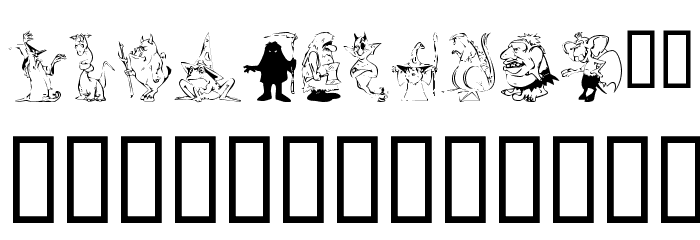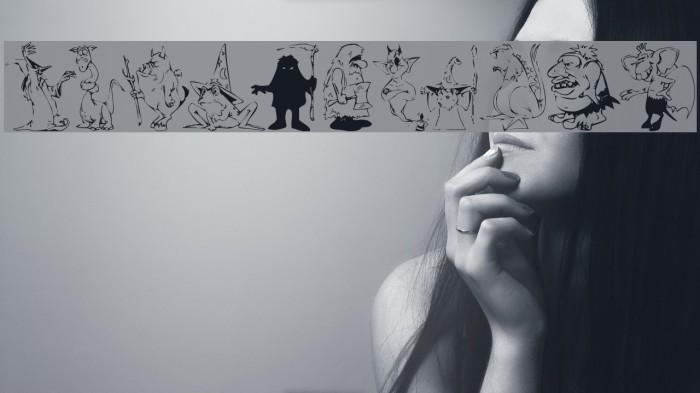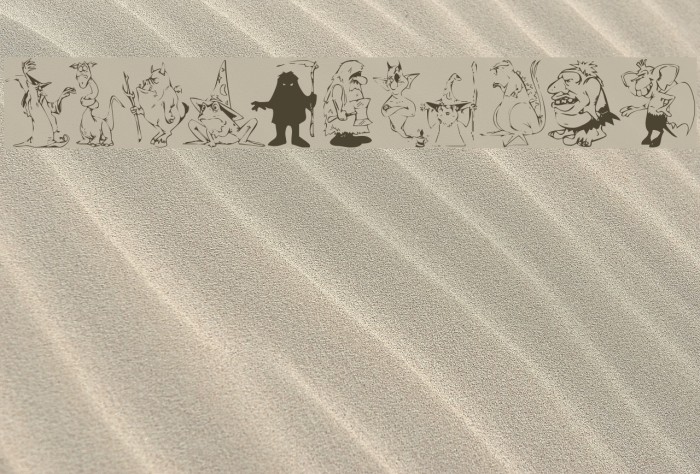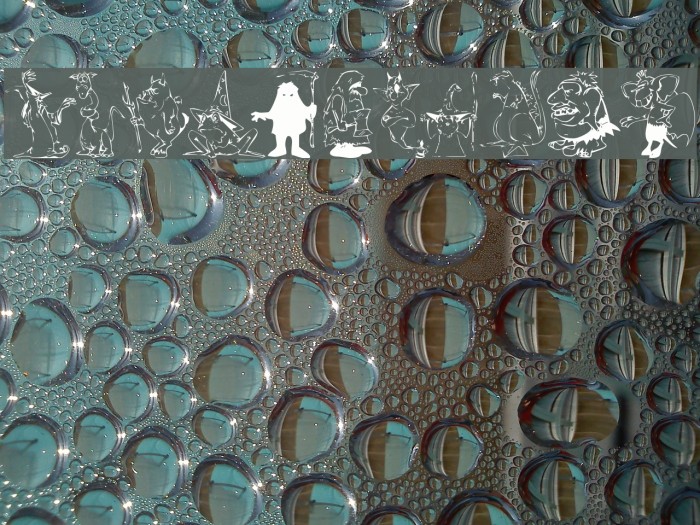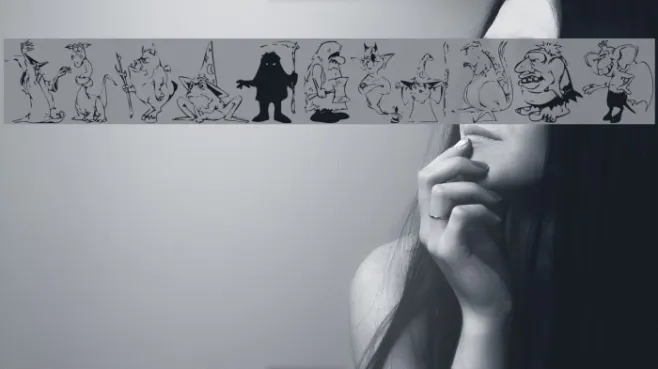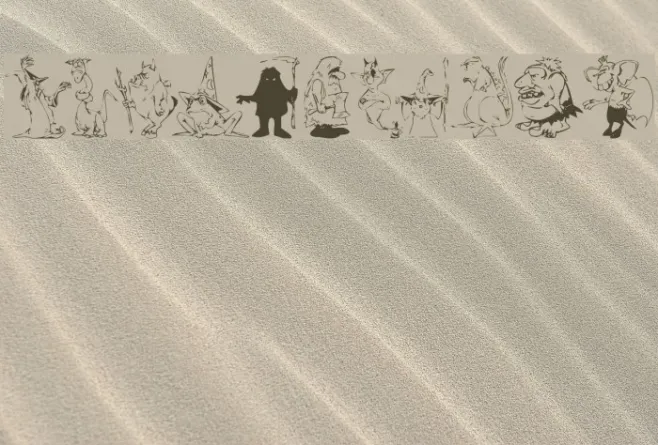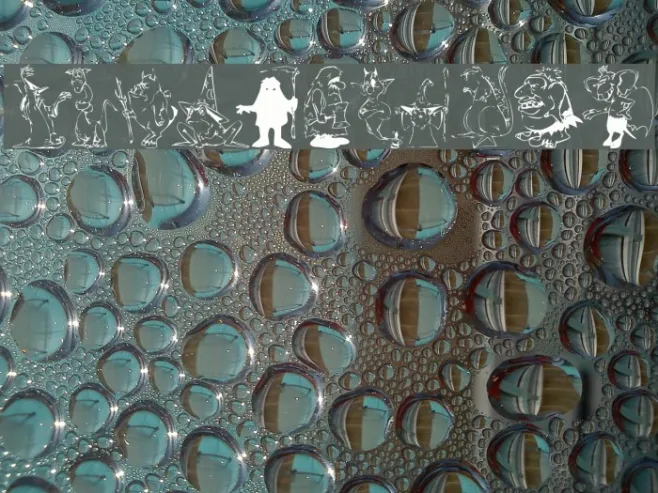
KR RPG Font
This is not a valid font. The image contains cartoon characters instead of standard alphanumeric characters or symbols typically associated with a font set. Each character is represented by a unique cartoon figure, making it unsuitable for typical text representation or typography use.
The image does not depict a valid font.
- Proposed Projects: This set could be used for creative projects involving character design or storytelling, but not for traditional typography.
- Use Case: Illustrations, Character design